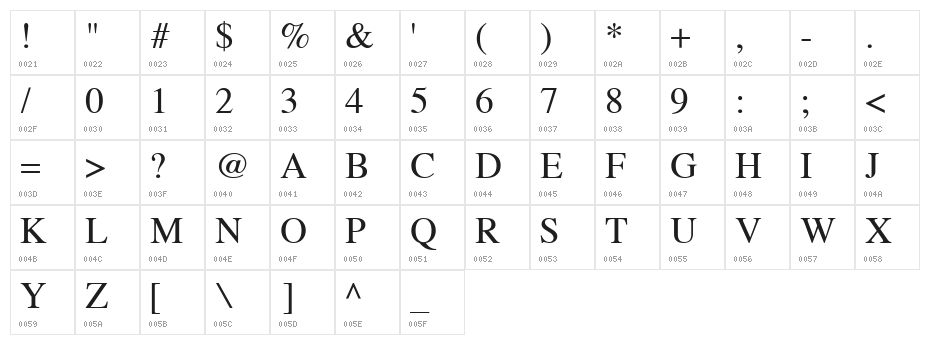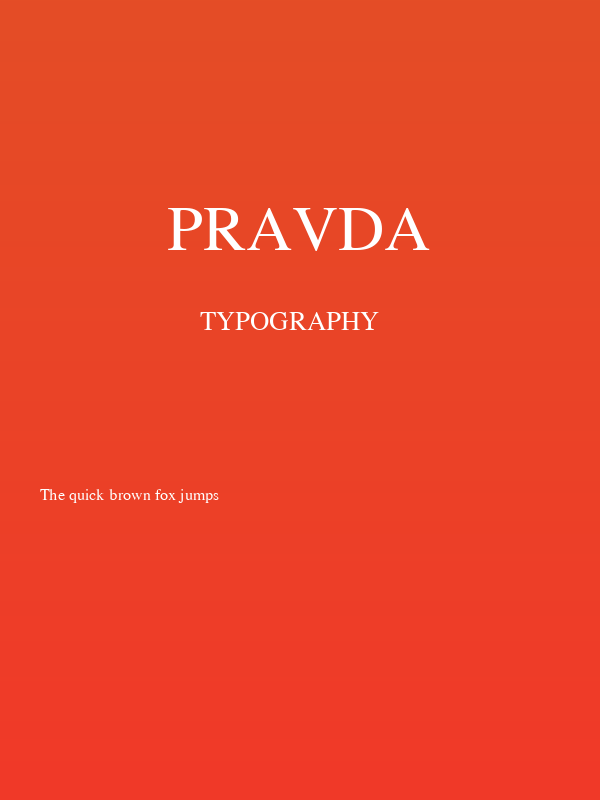
Pravda Font
| Proiecte propuse | Ideal for editorial design, book covers, formal invitations, and branding projects that require a traditional and sophisticated look. |